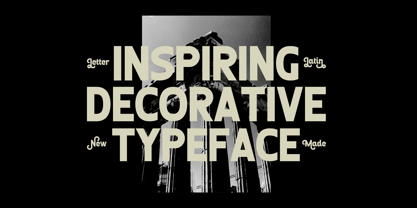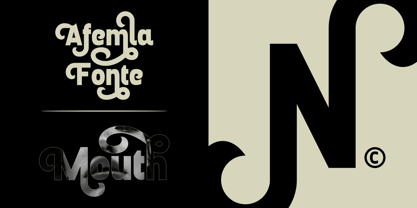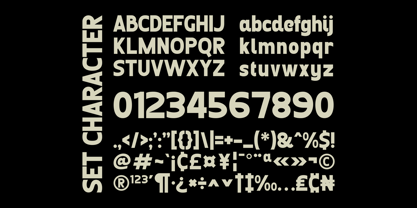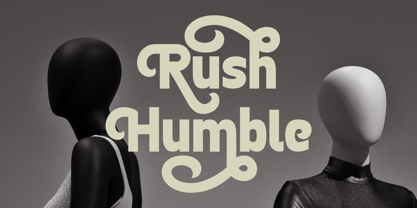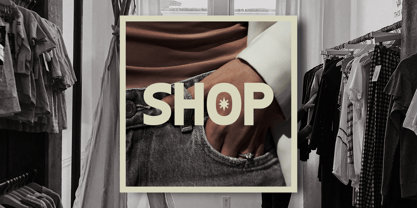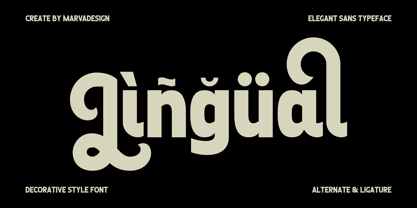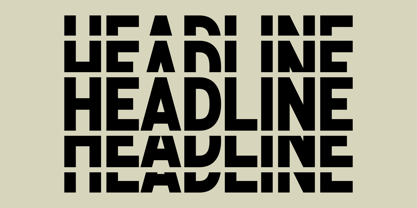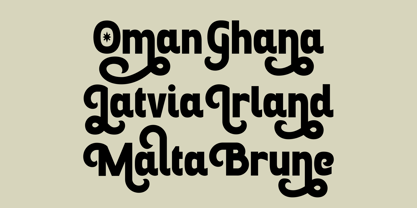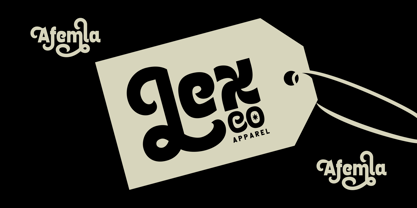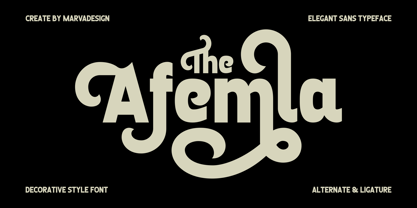
Afemla
by Marvadesign
The Afemla Font Family was designed by Febrie Setiawan and published by Marvadesign. Afemla contains 1 styles. More about this family
Introducing Afemla is a sophisticated Elegant Decorative Sans Serif font that combines modern elegance with artistic flair. Designed to captivate, it offers a distinctive aesthetic that is both contemporary and timeless, making it perfect for high-end branding, editorial designs, and luxurious visual identities.
Luxury branding (logos, packaging, and stationery)
Editorial layouts (magazines, books, and brochures)
Fashion and beauty promotions
Wedding or event invitations
High-end websites and digital interfaces
Afemla carries an air of sophistication, elegance, and modernity. Its delicate interplay of form and detail makes it an ideal choice for projects that require a balance of functionality and aesthetic refinement.